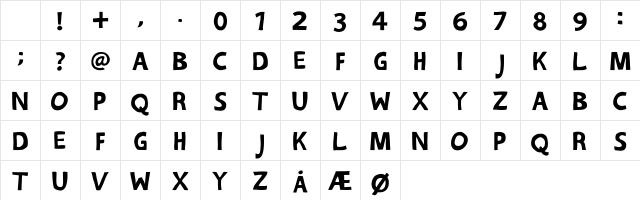
Complete Festival Jomfruer chunky glyph index. Displaying only characters natively supported by Festival Jomfruer chunky font.
Festival Jomfruer is a composed and adaptable typeface that performs quietly and consistently across a wide range of design contexts.
Who designed the Festival Jomfruer chunky font?